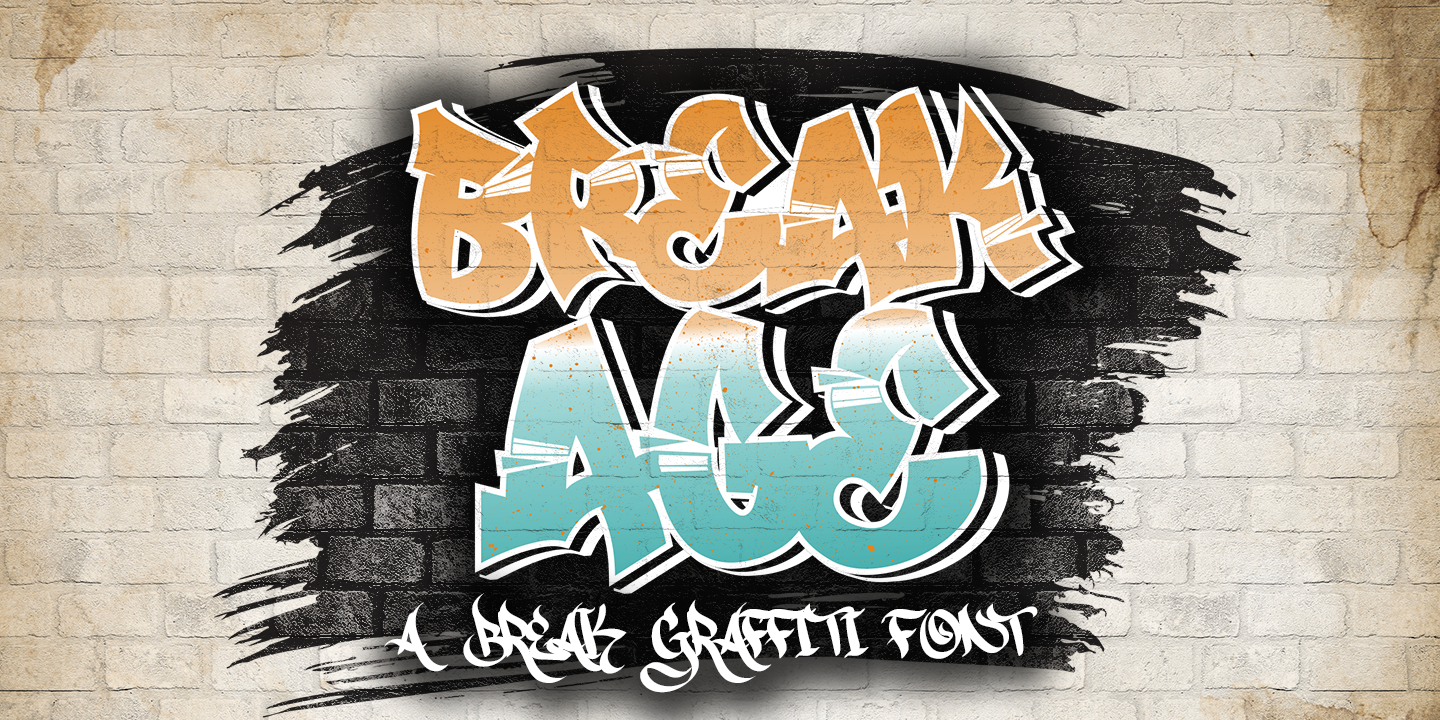
Break Age Graffiti Font is perfect for hip-hop culture branding, urban streetwear designs, underground music promotions, street art exhibitions, youth marketing campaigns, breakdancing event materials, urban lifestyle communications, and rebellious creative expressions.
This dynamic graffiti typeface is exciting because it captures the raw energy and revolutionary spirit of street art culture through bold letterforms that embody the creative rebellion and artistic freedom of urban graffiti movements across generations.
The Break Age Graffiti Font family includes regular and heavy weights with spray-paint alternates, street art decorative elements, and urban-inspired variants that enhance the authentic underground atmosphere of any street culture design project.
Revolutionary and authentic, Break Age Graffiti Font Free Download brings the rebellious spirit and creative freedom of street art culture to contemporary typography through genuine urban character. This powerful font embodies the artistic revolution and cultural expression that transforms city walls into galleries, making it essential for brands connecting with youth culture and urban communities. Its bold character reflects the courage and creativity required to transform public spaces into artistic statements, resonating with audiences who appreciate authentic street culture over commercialized imitations. Perfect for hip-hop labels and streetwear brands, this font ensures your message carries the urban authenticity and rebellious credibility that street culture demands. Whether used for underground music promotions or urban art exhibitions, Break Age Graffiti Font Free Download delivers the street credibility and artistic integrity that connects with people who understand that true art comes from the streets and speaks truth to power through creative expression that cannot be silenced or commercialized.